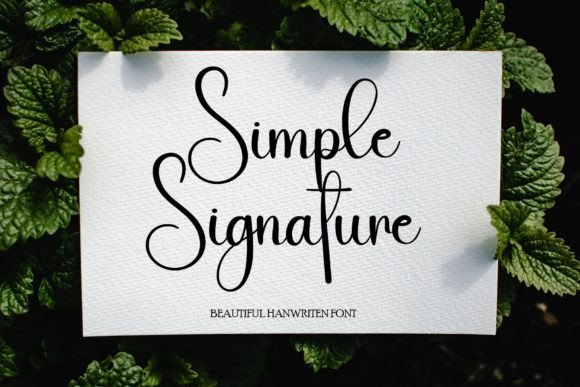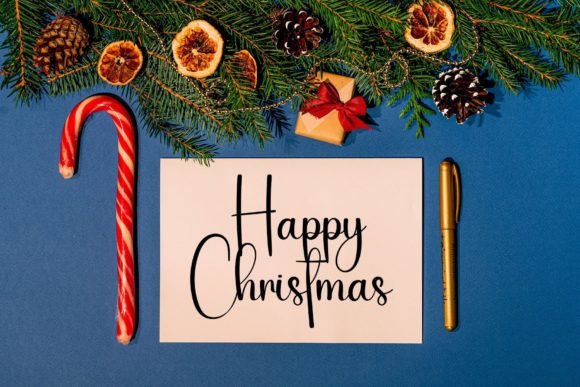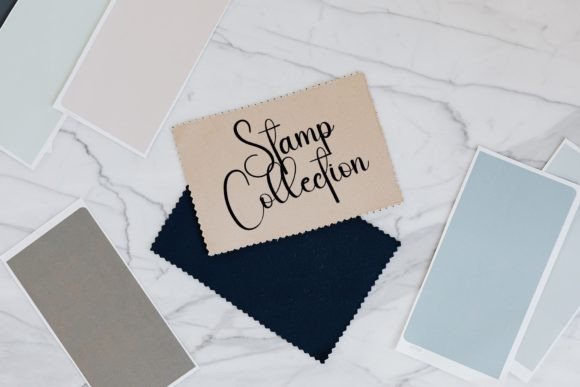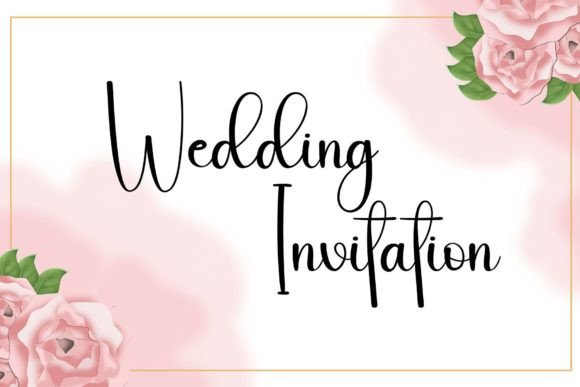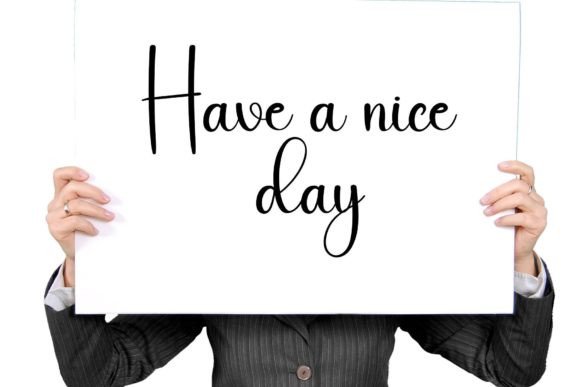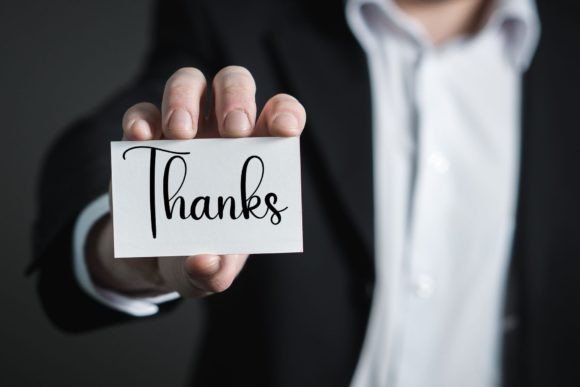
Simple Signature Font
“Simple Signature” is not just a font; it’s a delicate masterpiece of handwritten elegance, meticulously crafted to infuse your crafty projects with authenticity and charm. Its well-rounded characters and graceful strokes make it an ideal choice for various creative endeavors that demand genuine typography. Whether you’re designing wedding invitations, birthday cards, personal branding materials, elegant logos, or any other project requiring an authentic touch, Simple Signature effortlessly elevates your designs.
Visualize your wedding invitations graced by the delicate and well-rounded letters of Simple Signature, each stroke exuding an air of refined grace. Imagine your birthday cards, each word penned in this font, expressing warmth and sincerity. Personal branding materials and logos gain a unique personality when designed with Simple Signature, leaving a lasting impression on your audience.
Simple Signature isn’t just a font; it’s a design essential that adds a touch of authenticity to your crafty projects. Its handwritten charm conveys a sense of craftsmanship and individuality, making your designs feel personal and genuine. The font’s delicate and well-rounded style becomes a visual signature, reflecting the care and attention you put into your creations.
In a world where authenticity is valued, Simple Signature stands out as a symbol of genuine craftsmanship. Its well-rounded characters and delicate grace add an element of timeless beauty to your designs, making them memorable and impactful. When you choose Simple Signature for your projects, you’re not just selecting a font; you’re making a statement—a statement of authenticity, elegance, and creativity.
So, whether you’re a professional designer aiming for genuine typography or an individual with a passion for crafty creativity, Simple Signature is your trusted companion. It’s more than just a font; it’s an opportunity to infuse your crafty projects with the authenticity of handwritten elegance. Let Simple Signature be the brush that adds genuine warmth to your creations and the handwritten touch that transforms your designs into heartfelt expressions. With Simple Signature, your crafty endeavors are bound to shine with authentic charm and sincerity.